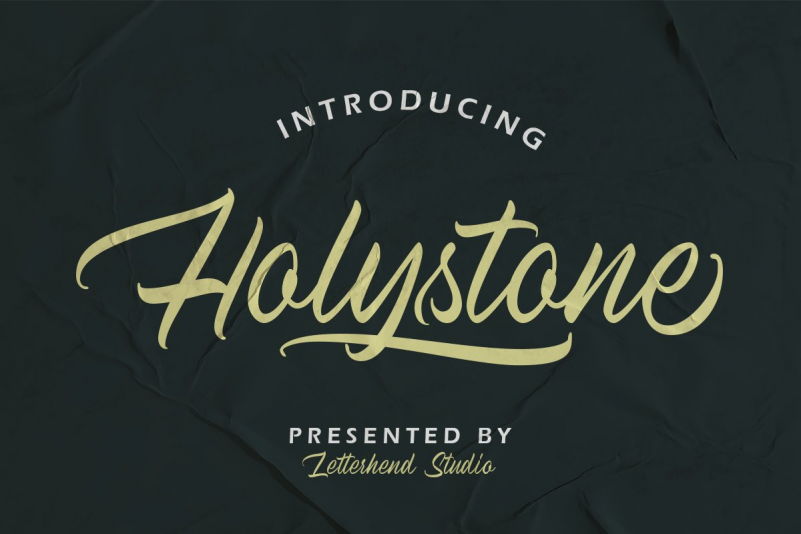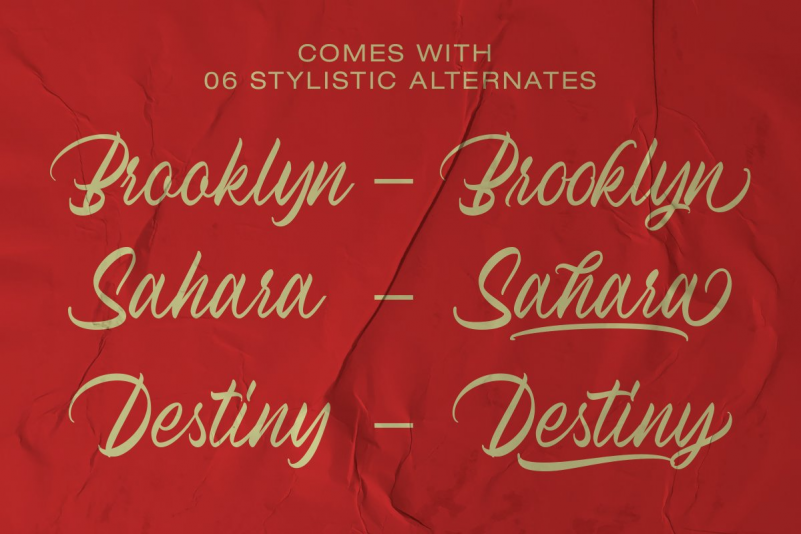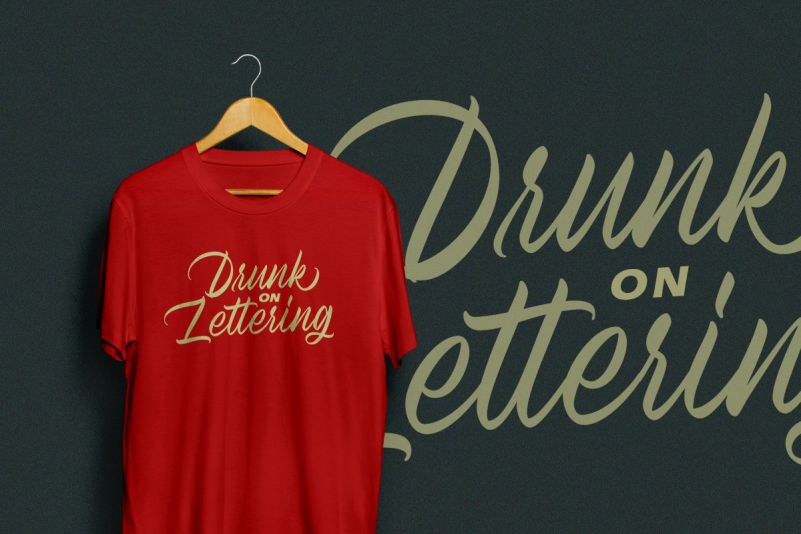
Holystone Font
Introducing, Holystone. A natural hand writing script typeface. Very suitable to be used as a headline, instagram post and stories, logos, magazines, books, greeting / wedding cards, packaging, fashion, make up, stationery, novels, labels or any type of advertising purpose.